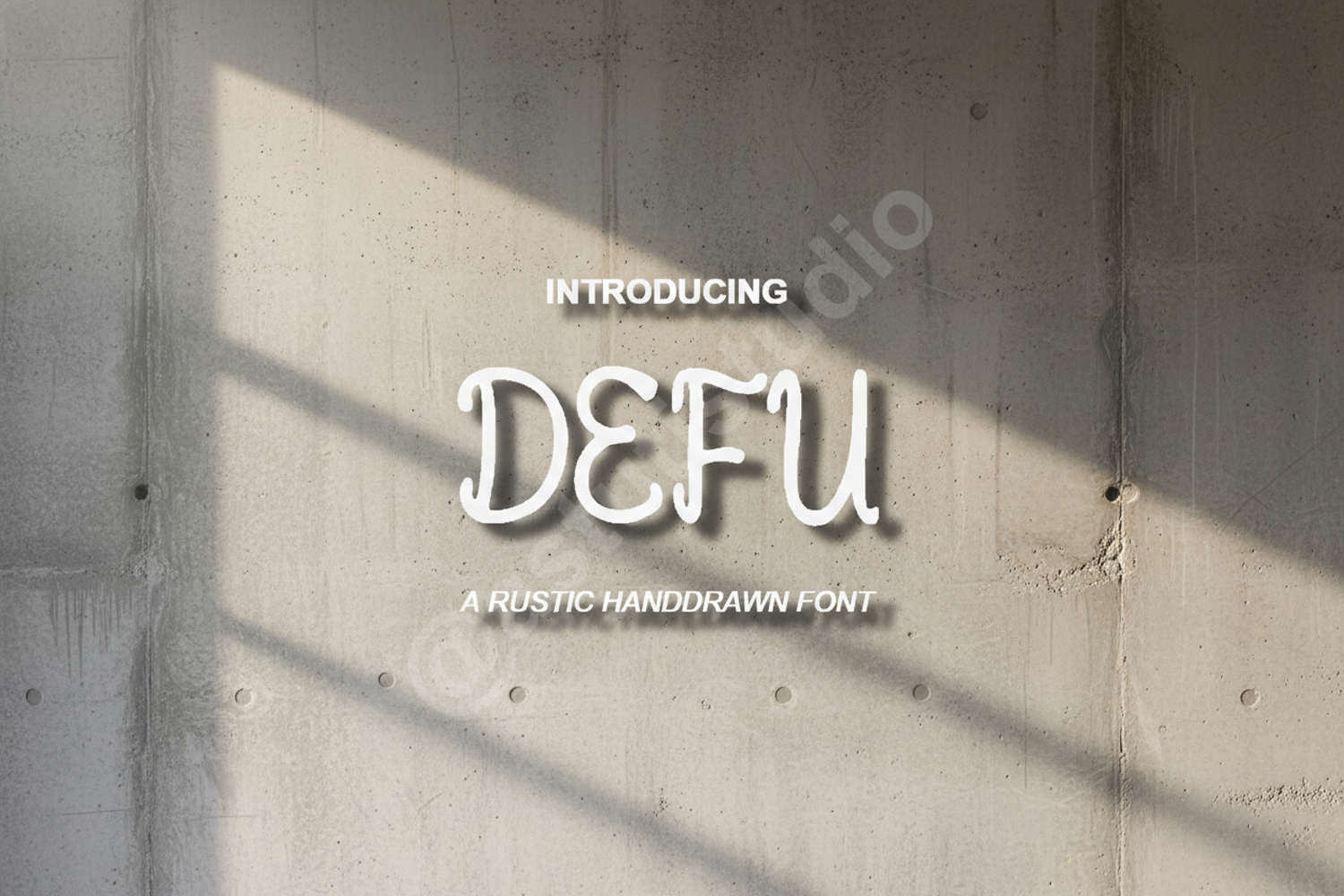
Defu - Modern Minimalist Sans Serif Typeface
Defu
Elevate your design projects with Defu, a premium sans serif typeface that embodies modern minimalism and sophisticated clarity. Crafted with precision, Defu offers a balanced aesthetic that seamlessly blends professional structure with contemporary flair. Whether you are building a brand from scratch or looking for the perfect headline font, Defu provides the versatility and high-end quality required for standout visuals.
- Smooth kerning and optimized spacing for professional results
- Branding and Identity: Create memorable logos and cohesive corporate stationery.
- Wedding Stationery: Perfect for clean, modern invitation suites and event signage.
- Social Media: Design eye-catching Instagram posts and high-impact Pinterest graphics.
- Editorial Design: Ideal for magazine layouts, headers, and clear body text.
- Product Packaging: Enhance your physical goods with a sleek, high-end visual appeal.